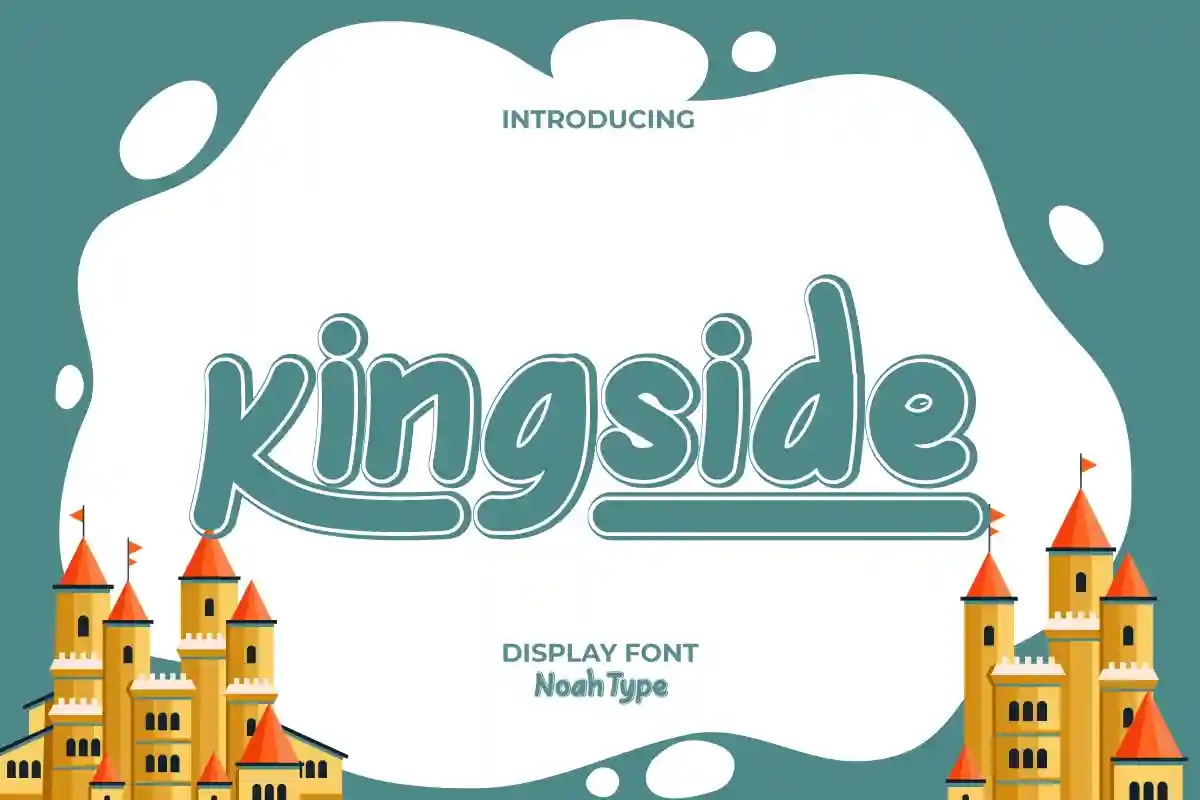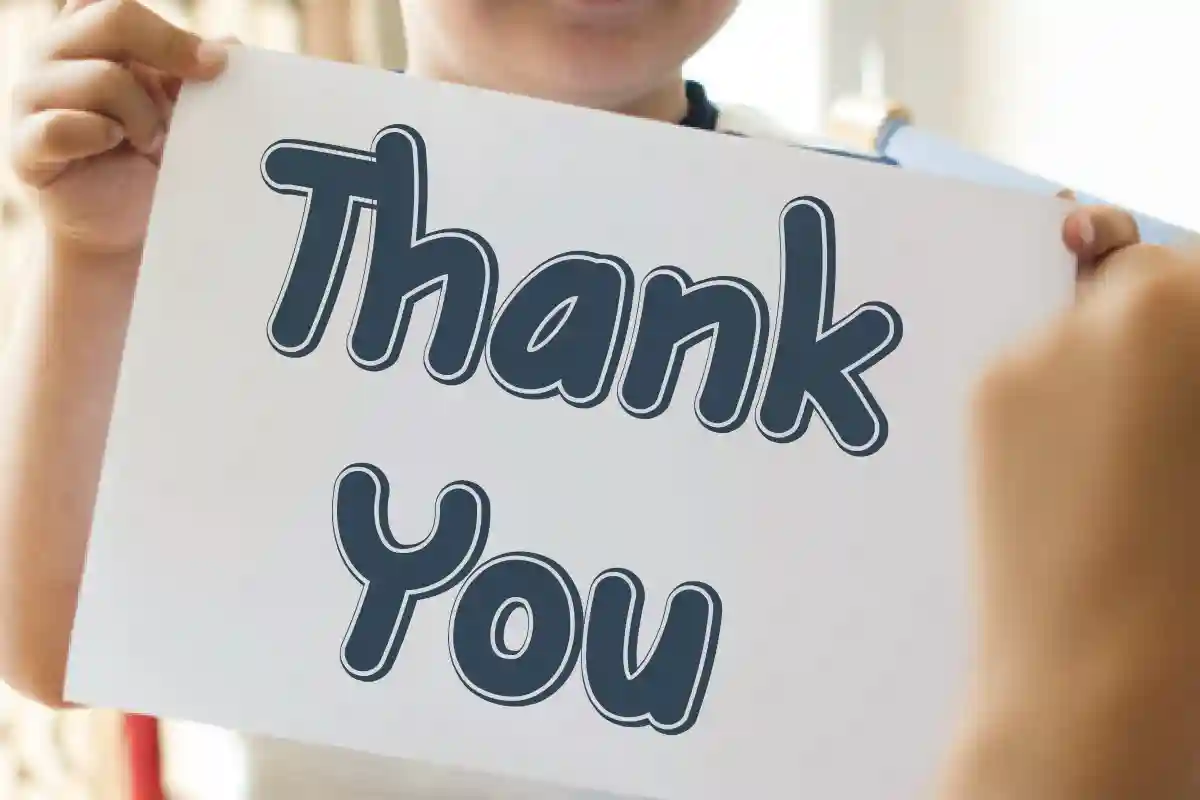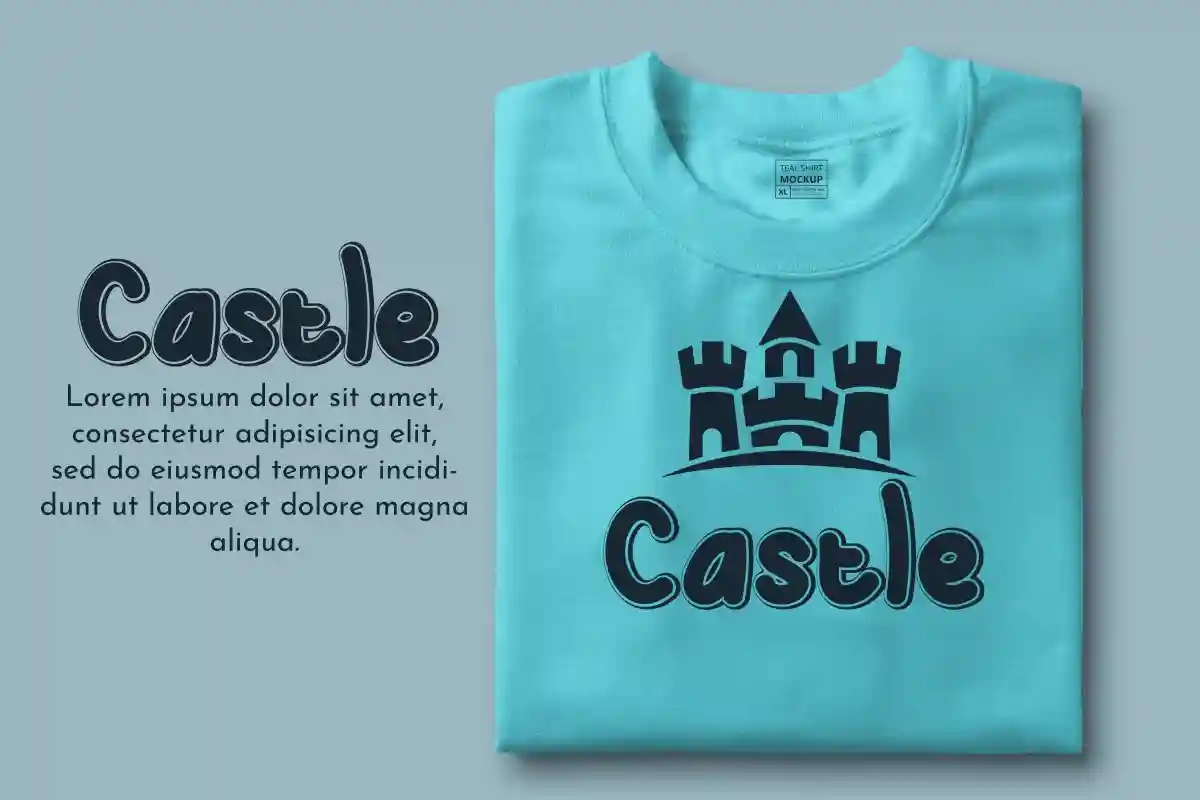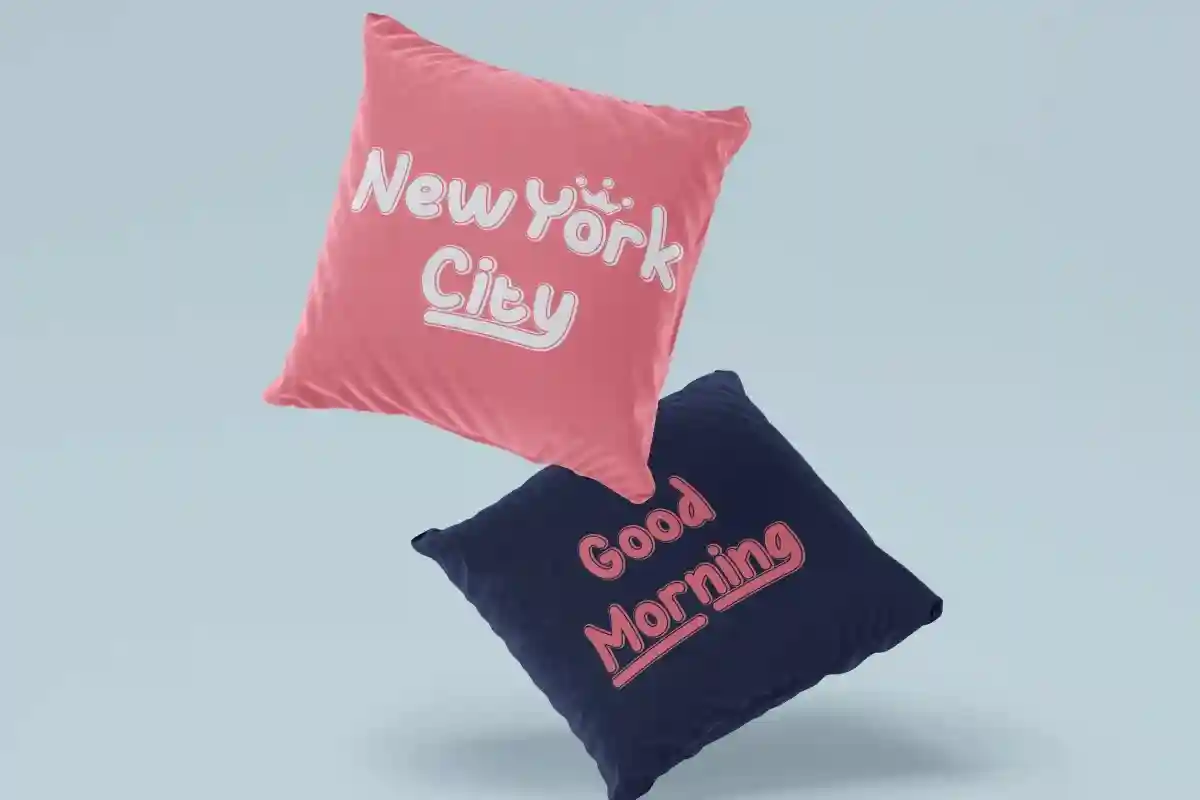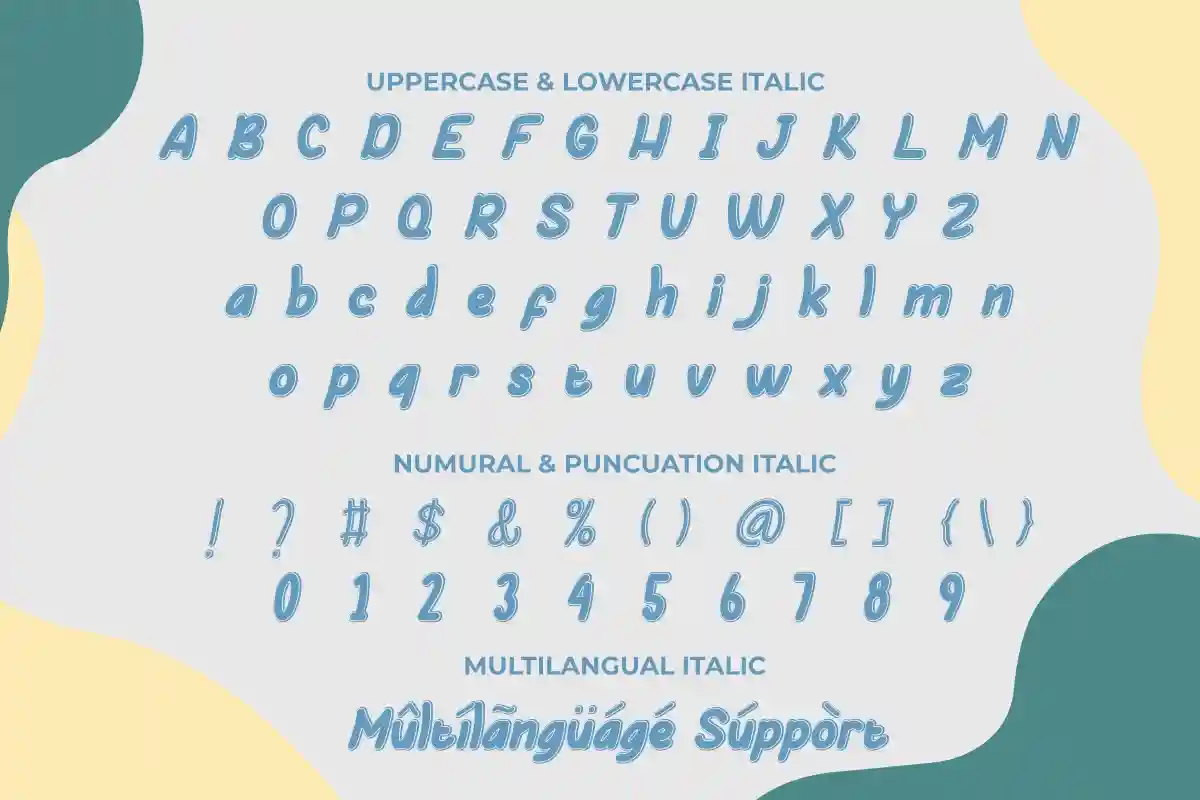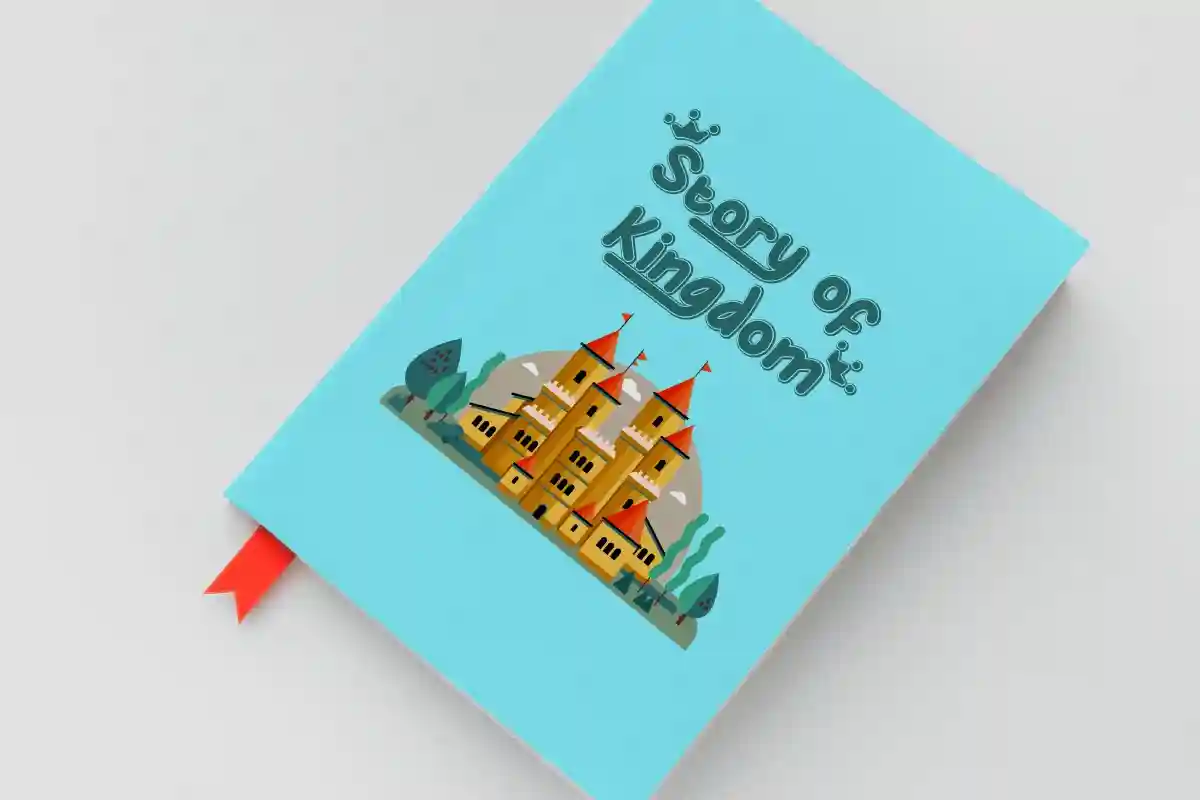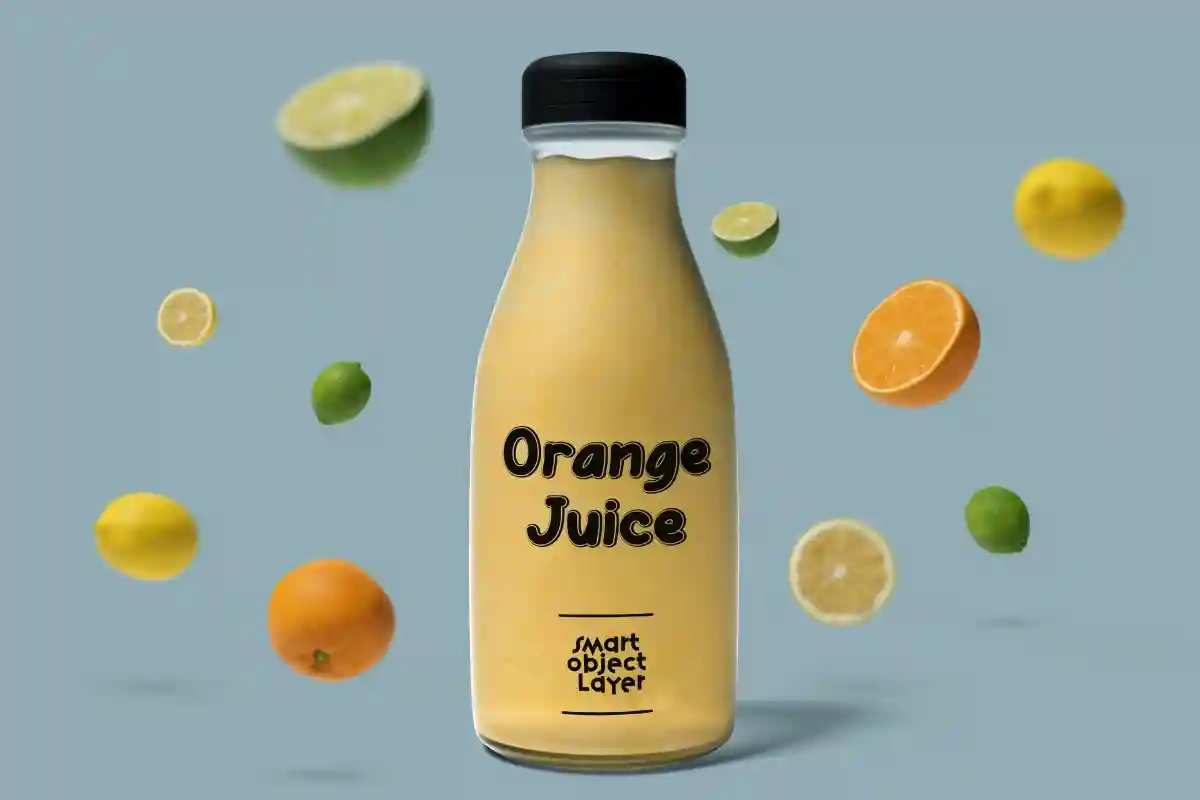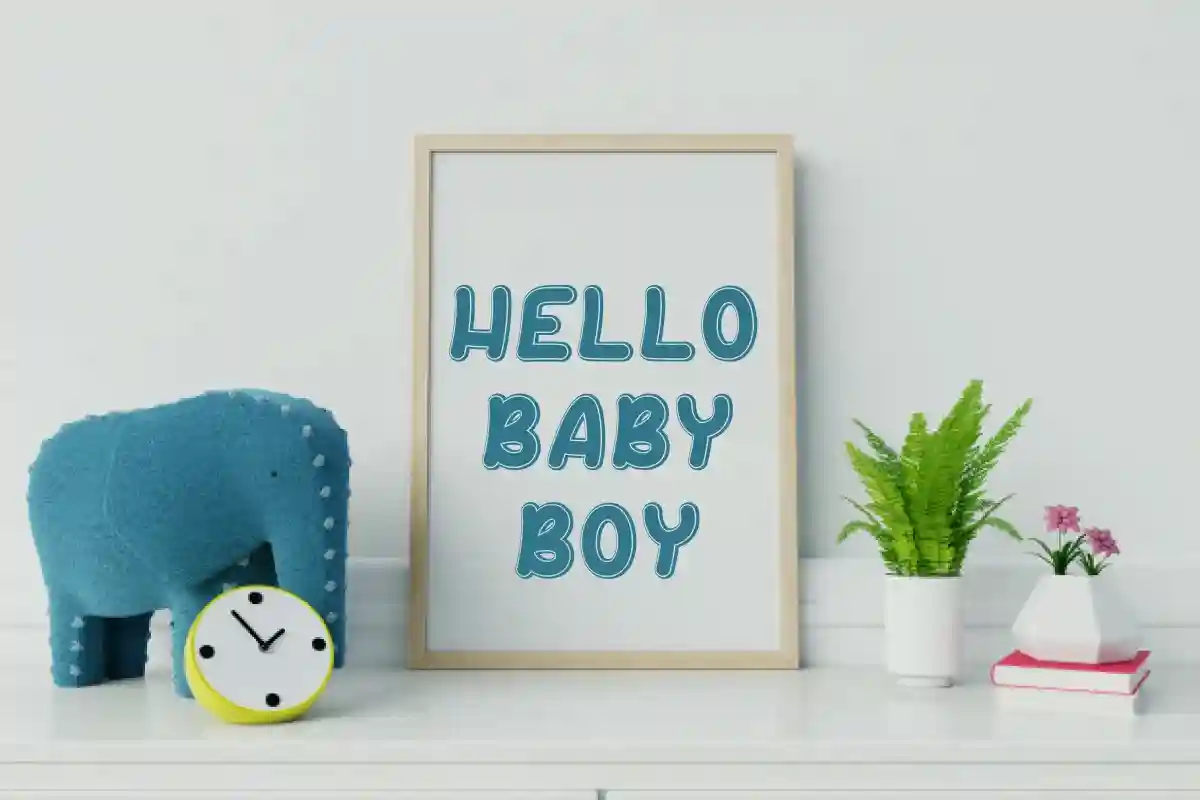
Kingside Comic Handwriting Font
Kingside is a fun handwriting font with simple comic inspired style. This font is crafted carefully in every its single line, created to look as close to a natural handwritten script so that it can create the perfect combination on each glyph. When we make this font, we really want to create a touch that is so free-flowing that it gives a natural impression on its use later. This awesome script is for anyone who are needing of fun and stylish designs.
Kingside Comic Font includes full set of Uppercase and Lowercase Basic Characters, Numerals and Punctuation. Also it contains ligatures and alternates characters to perfectly make natural handwriting look that add more beautiful and aesthetic fonts to perfect your extraordinary project. Kingside Handwriting Font will be awesome for invitations, events, movie, music, children book, school, kids products, social media etc
Kingside Comic Font will be great for branding, logotype, social media post, poster, invitation, watermark, lettering and many more